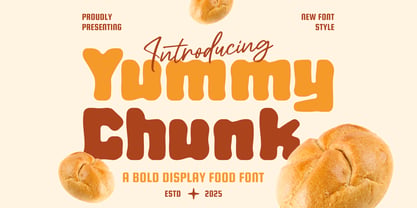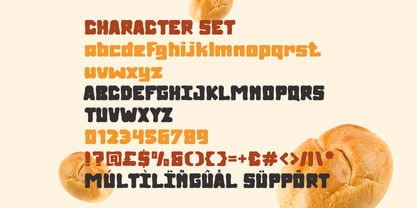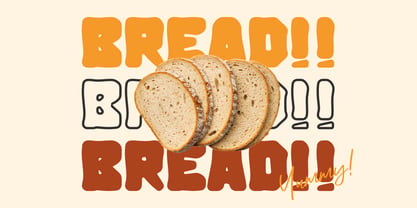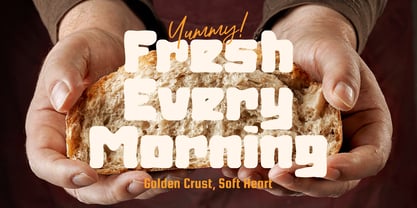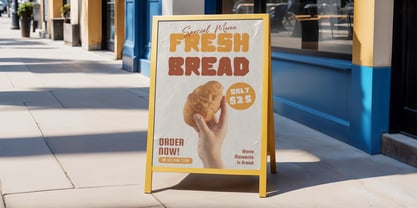
Yummy Chunk
by Shanaf
The Yummy Chunk Font Family was designed by Yesie Erma Yunita and published by Shanaf. Yummy Chunk contains 1 styles. More about this family
Yummy Chunk Food Display Font features thick, rounded letterforms with a soft and inflated structure. The strokes appear very bold with minimal contrast, creating a heavy visual weight. Each character shows slightly uneven edges that give a natural and handcrafted impression. The proportions feel wide and compact, making words look dense and easy to read. Ascenders and descenders remain short, which keeps the layout tight and stable. Counters are open and simple, supporting clarity in large display sizes. The terminals are rounded and smooth, reinforcing a friendly and approachable tone. This font blends playful display style with a food-inspired visual character, making it highly expressive. This font works well for branding projects related to bakery, bread products, and food businesses. It fits logo design, packaging labels, and product branding that require bold presence. The strong shapes support posters, advertising headlines, and promotional campaigns. It performs effectively in menu boards, signage, and storefront displays. Designers can also apply it to greeting cards, invitations, and crafting projects. The playful structure suits book covers, magazine titles, and sticker designs. It aligns with themes such as fresh food, homemade products, and casual dining concepts. Yummy Chunk Food Display Font helps create memorable brand identity with bold and friendly typography.
Designers: Yesie Erma Yunita
Foundry: Shanaf